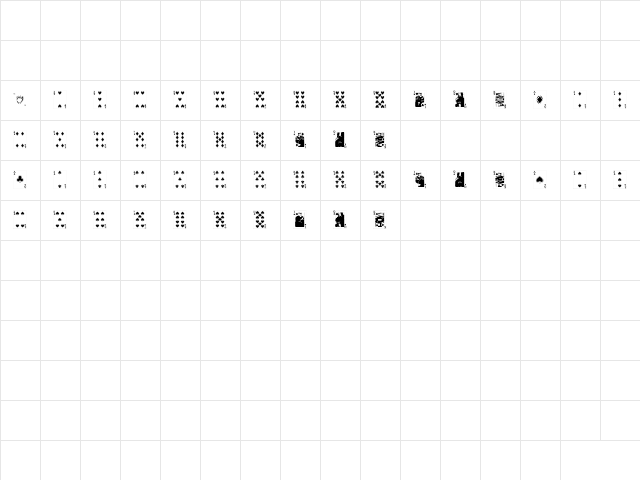
52PlayingCards Regular
Design Context for 52PlayingCards
52PlayingCards is a composed and adaptable typeface that performs quietly and consistently across a wide range of design contexts.
Pro Tip: Use 52PlayingCards in both headline and body roles to test its range before committing to a single application.